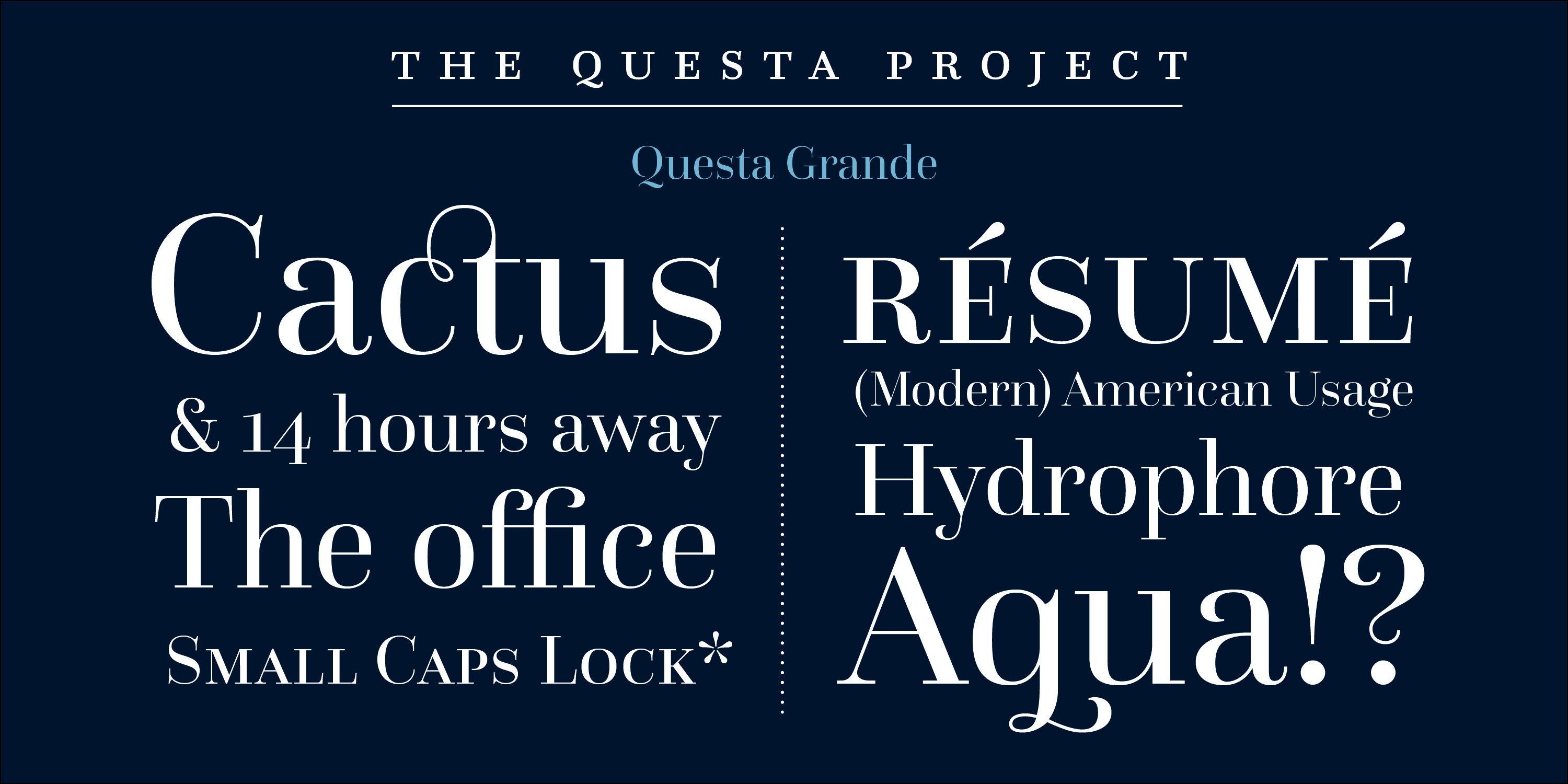
Questa Grande Font is ideal for luxury magazines, high-end fashion editorials, premium brand campaigns, sophisticated advertising, elegant book covers, upscale restaurant menus, art exhibition catalogs, and refined corporate communications. This striking serif typeface brings dramatic elegance, editorial sophistication, and commanding presence to any project requiring exceptional visual impact and premium aesthetic appeal.
What makes Questa Grande Font exciting is its bold personality combined with refined elegance that creates unforgettable visual statements. The font features distinctive high-contrast letterforms with dramatic thick and thin strokes, sharp serifs, and carefully crafted details that demand attention while maintaining exceptional readability. Its editorial character bridges classical typography traditions with contemporary boldness, making it perfect for brands that want to convey both heritage and innovation.
The Questa Grande Font family typically includes multiple weights from regular to bold, with matching italic styles and display variations. The complete family features extended character sets with international language support, professional typography options including stylistic alternates, ligatures, and special characters for sophisticated editorial design.
Whether you're creating luxury brand identities or editorial masterpieces, Questa Grande Font Free Download delivers uncompromising style and typographic excellence. This typeface performs magnificently in both large display headlines and carefully set body text, maintaining its distinctive character across all applications. Its premium aesthetic makes it particularly effective for fashion brands, cultural institutions, and luxury services that need to communicate exclusivity and refined taste. The font's dramatic presence helps establish strong brand recognition while ensuring maximum impact and memorable reader experiences.